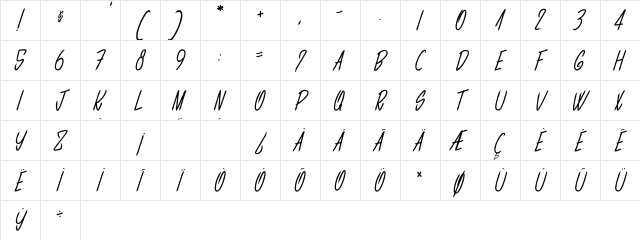
LES CAROTTES SONT FRAICHES Italic
Foundry: Maelle.K
Design Context for LES CAROTTES SONT FRAICHES
LES CAROTTES SONT FRAICHES is a composed and adaptable typeface that performs quietly and consistently across a wide range of design contexts. The slanted form adds forward momentum and visual energy.